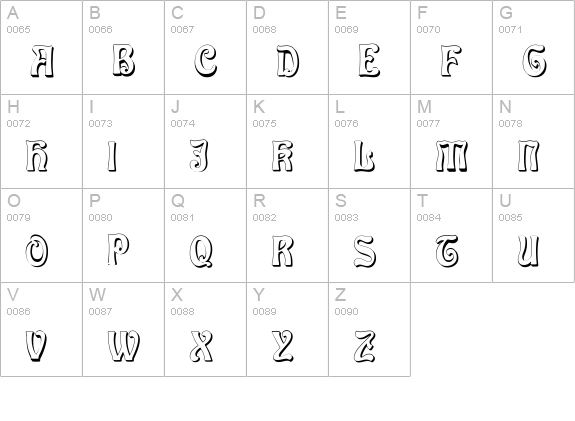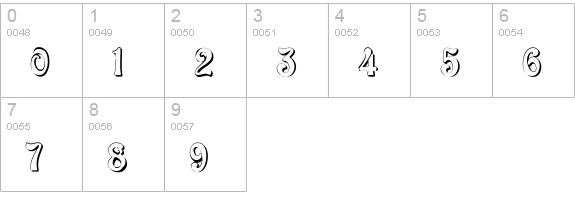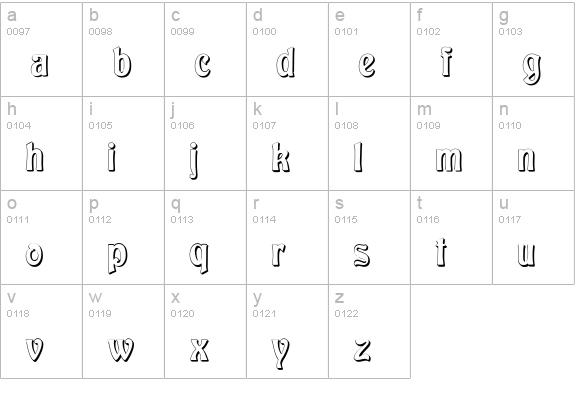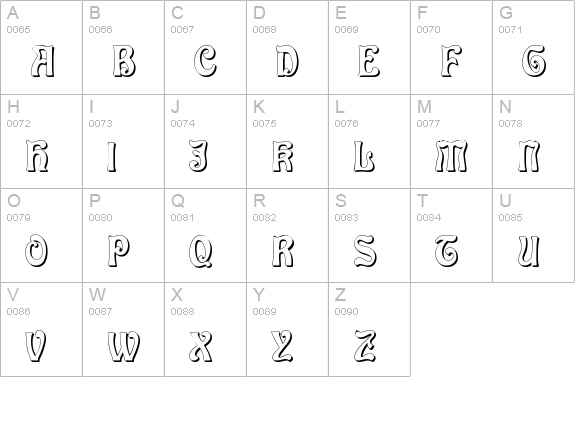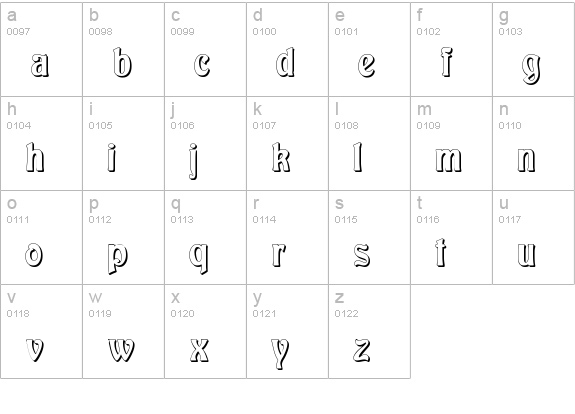
Baldur Shadow Font Details
Introducing Baldur Shadow font, a captivating and versatile typeface that exudes sophistication and elegance. With its subtle shadow effect, this font adds depth and dimension to any design project, making it perfect for branding, headlines, logos, and more. Baldur Shadow font combines modernity with a touch of classic charm, creating a unique and eye-catching aesthetic that will surely make your designs stand out. Its clean lines and sleek curves give it a timeless appeal, while the shadow effect adds a contemporary twist. Best of all, Baldur Shadow font is available for free download at FontsMarket.com, making it accessible to all designers and creatives looking to elevate their work with a touch of style and flair. Don't miss out on the opportunity to add this stunning font to your collection and bring your designs to life with Baldur Shadow.